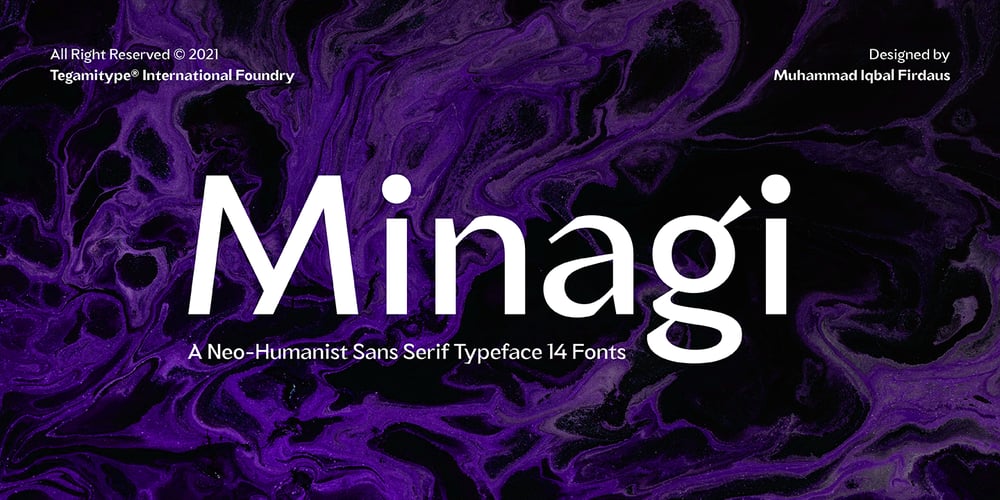
TG Minagi Sans
TG Minagi Sans font
TG Minagi Sans Font Family was designed by Iqbal Firdaus and published by Tegami Type. TG Minagi Sans contains 15 styles and family package options. TG Minagi Sans is a neo-humanist sans serif that takes inspiration from some calligraphy and blackletter letterforms providing sharp details and a little stiffness in some parts of the typeface. By combining these things with the modern form of the sans serif letter, TG Minagi Sans has a forceful and distinct character. Super terrific when used at massive sizes for display purposes and headlines, but reliable enough for small text sizes.TG Minagi Sans comes with 7 weights, 2 axes & 14 Styles, including a variable font file. Has several OpenType features such as various ligatures, lining figures (proportional, old styles, superior, inferior, denominator, numerator & fraction), stylistic styles 01-04 & covered more than 100 languages Latin based.